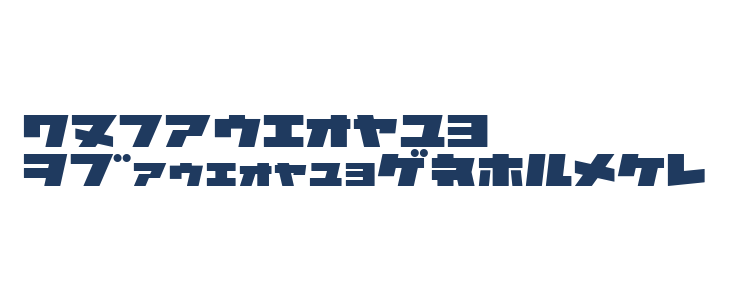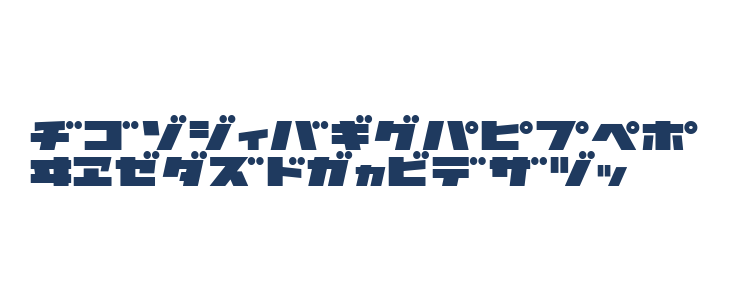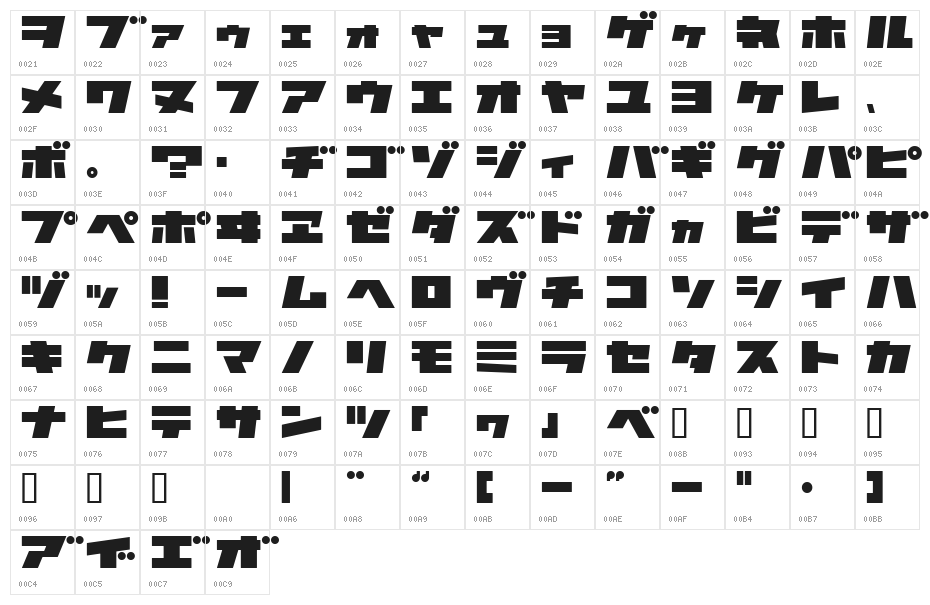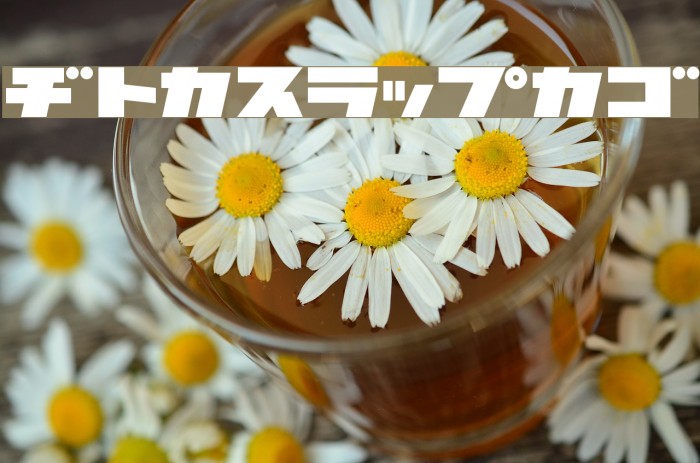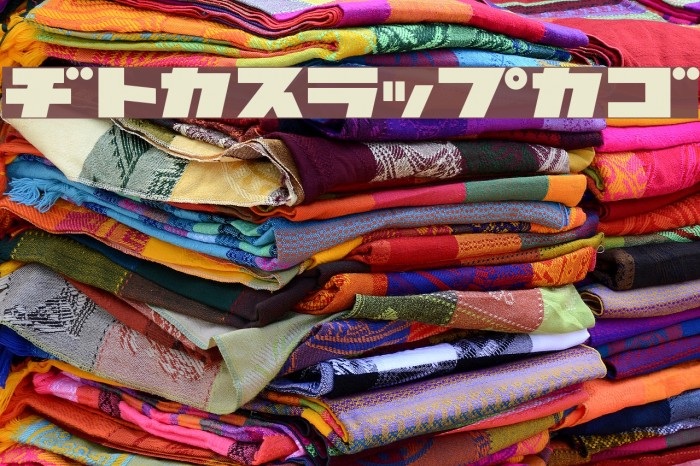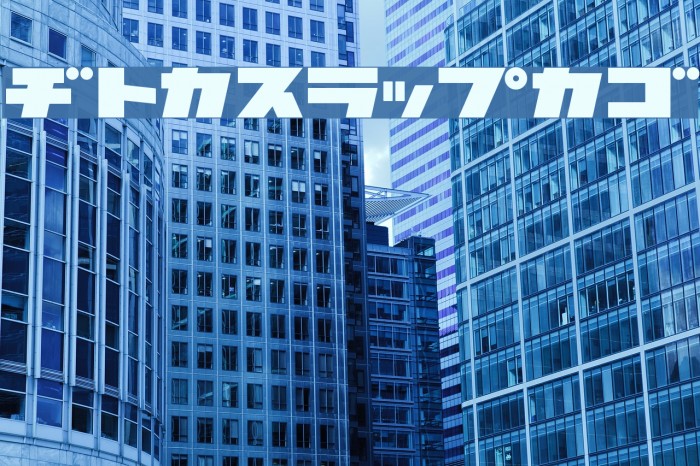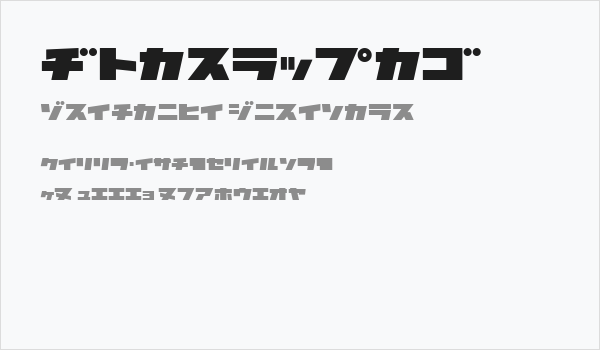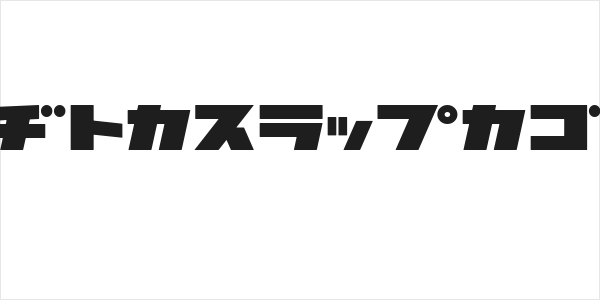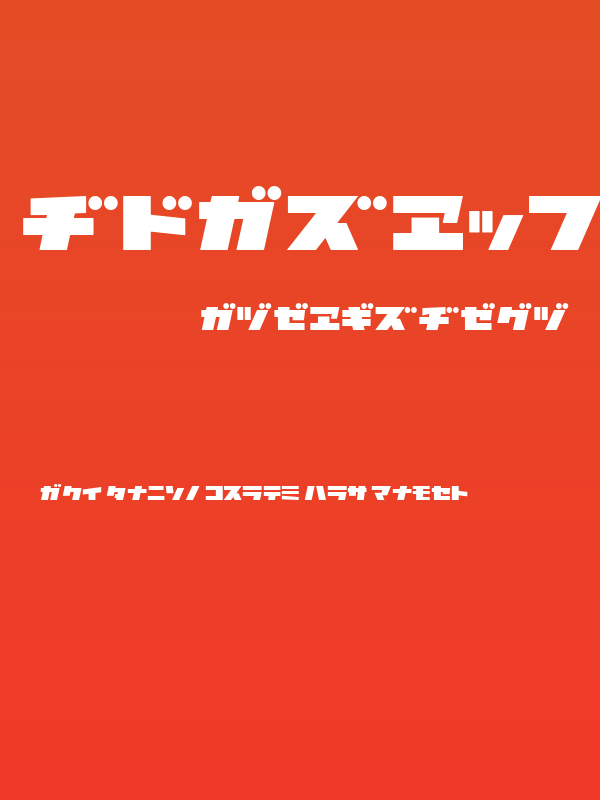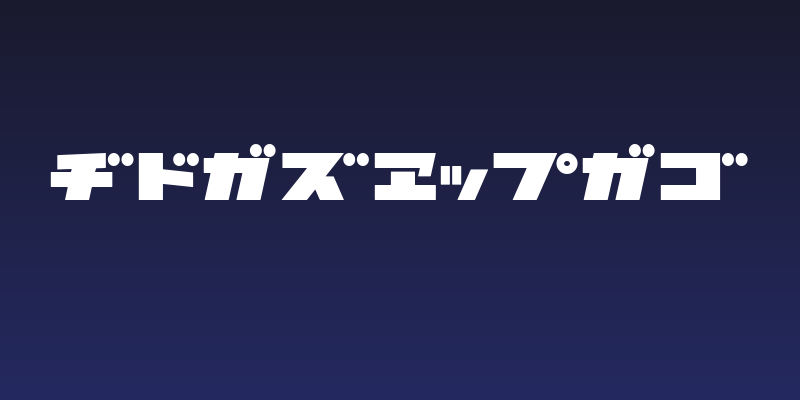
AstroZKtB Font
AstroZKtB Description
This font features bold, geometric characters with a distinctly modern and futuristic aesthetic. The characters are uniformly thick, with sharp angles and a blocky appearance that gives them a strong, impactful presence. The style is reminiscent of digital or sci-fi themes, making it ideal for projects that require a bold and assertive look. The uniformity in stroke width and the absence of curves contribute to its digital feel, while the overall design maintains a sense of balance and symmetry.
| Overall Style | Futuristic |